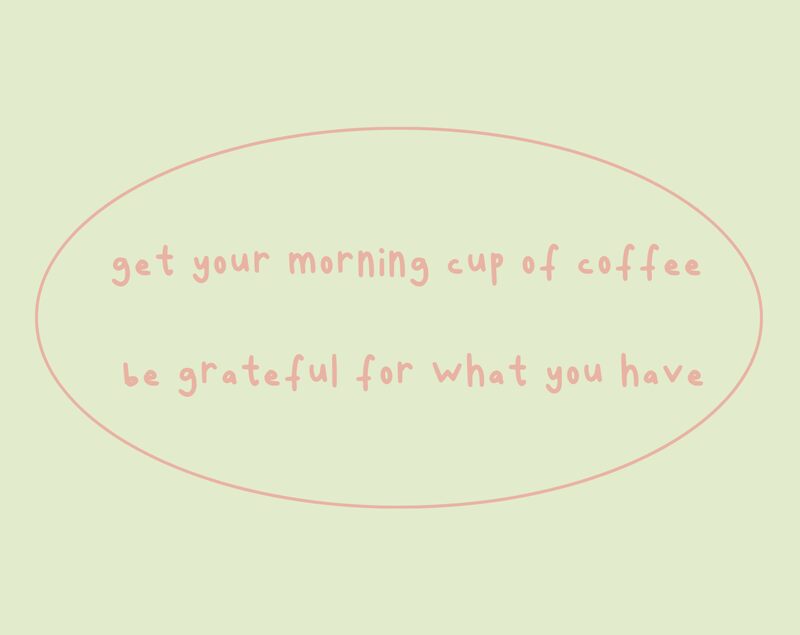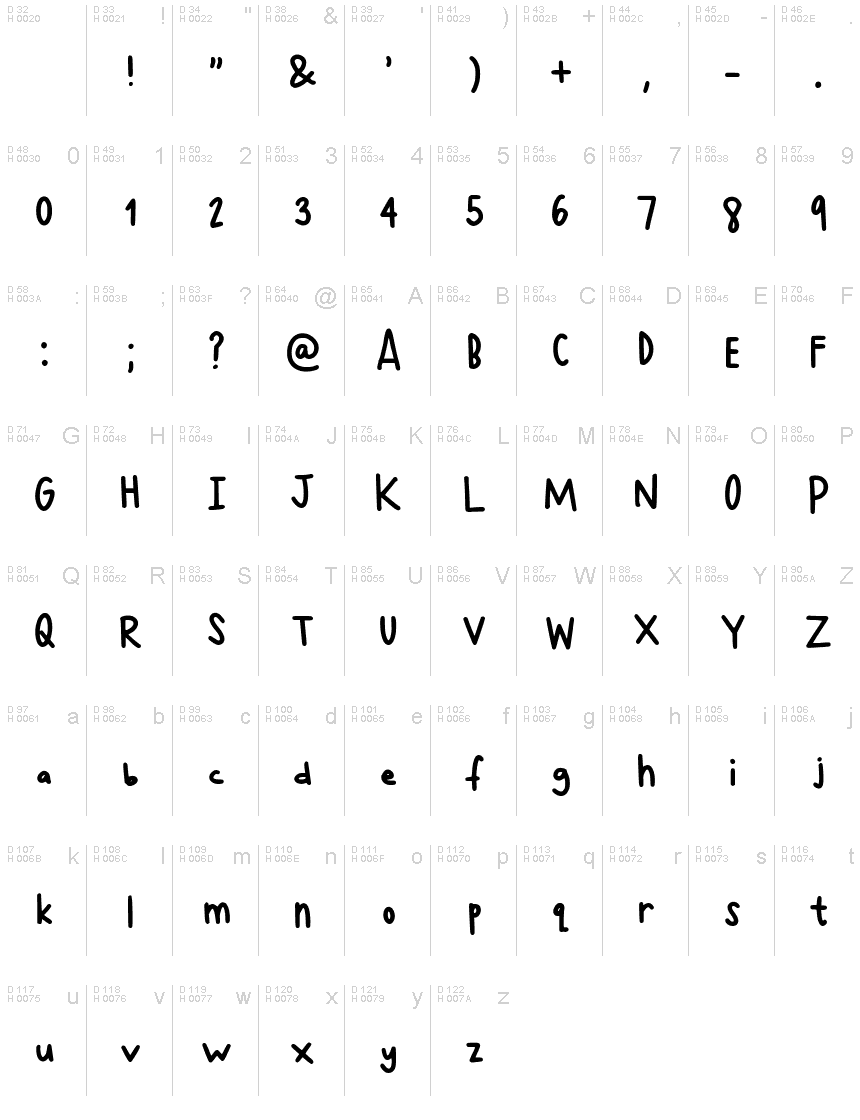
Aegyohome Regular
Aegyohome is a light, handwritten font designed by Aegyo.home. It's perfect for crafting eye-catching headlines, greeting cards and invitations, as well as logos and branding projects.